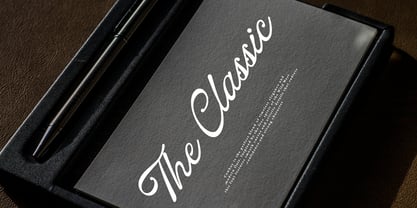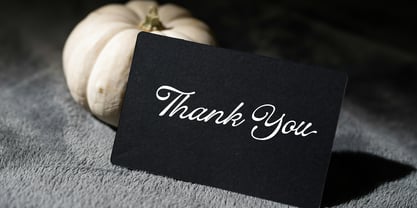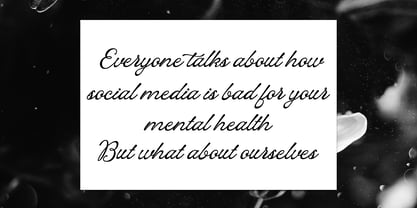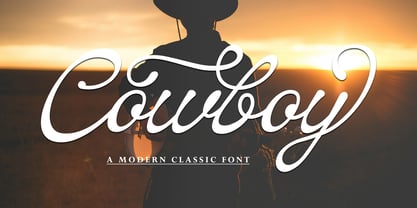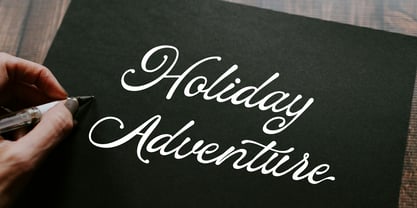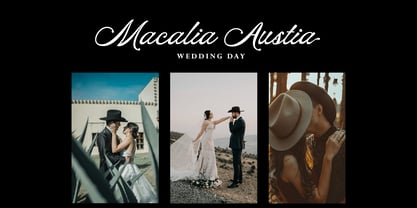
Cowboyscript
by Meta Creative
The Cowboyscript Font Family was designed by and published by Meta Creative. Cowboyscript contains 1 styles. More about this family
Cowboy is the perfect blend of timeless elegance and modern flair. Inspired by the free spirit of the Wild West, this font features smooth curves and artistic details that radiate confidence and strong character. Ideal for logos, branding, invitations, vintage designs, and creative projects that aim to be both bold and sophisticated Cowboy allows you to create handwritten letters instantly and very practically. Ideal for logos, handwritten quotes, product packaging, headers, posters, merchandise, social media & greeting cards